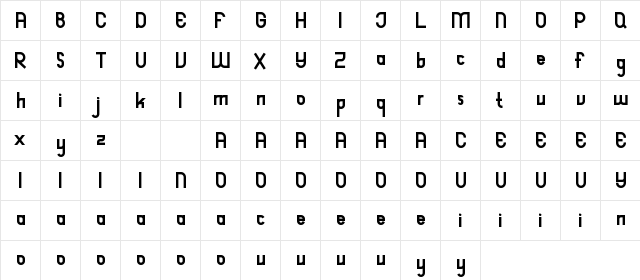
Reyburn Demo Bold Font Preview
Reyburn Demo Bold
Reyburn Demo Bold Font Details
| Foundry | Edric Studio |
| Designer | Muhammad Deyan S |
Design Context for Reyburn Demo Typeface
Reyburn Demo takes a measured approach to typography — its balanced proportions and neutral character make it a reliable workhorse for both digital and print work. Its bold stroke weight gives it real presence on the page.